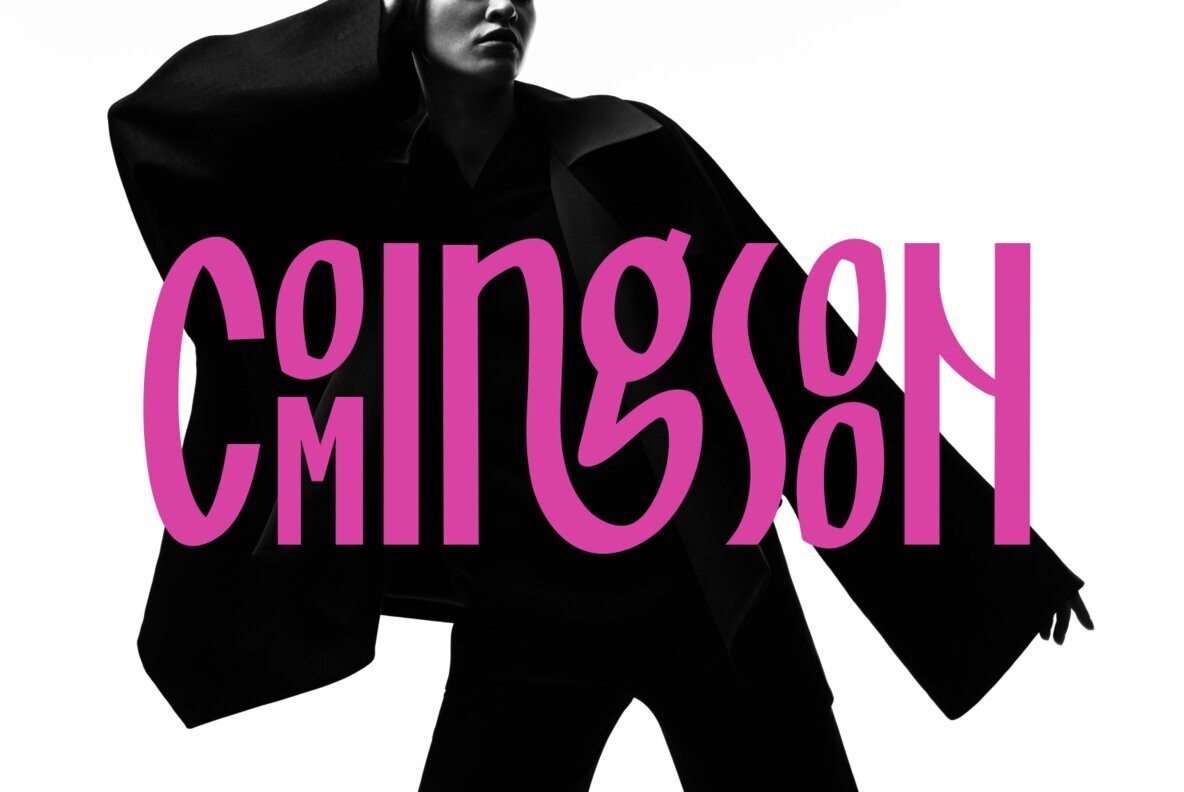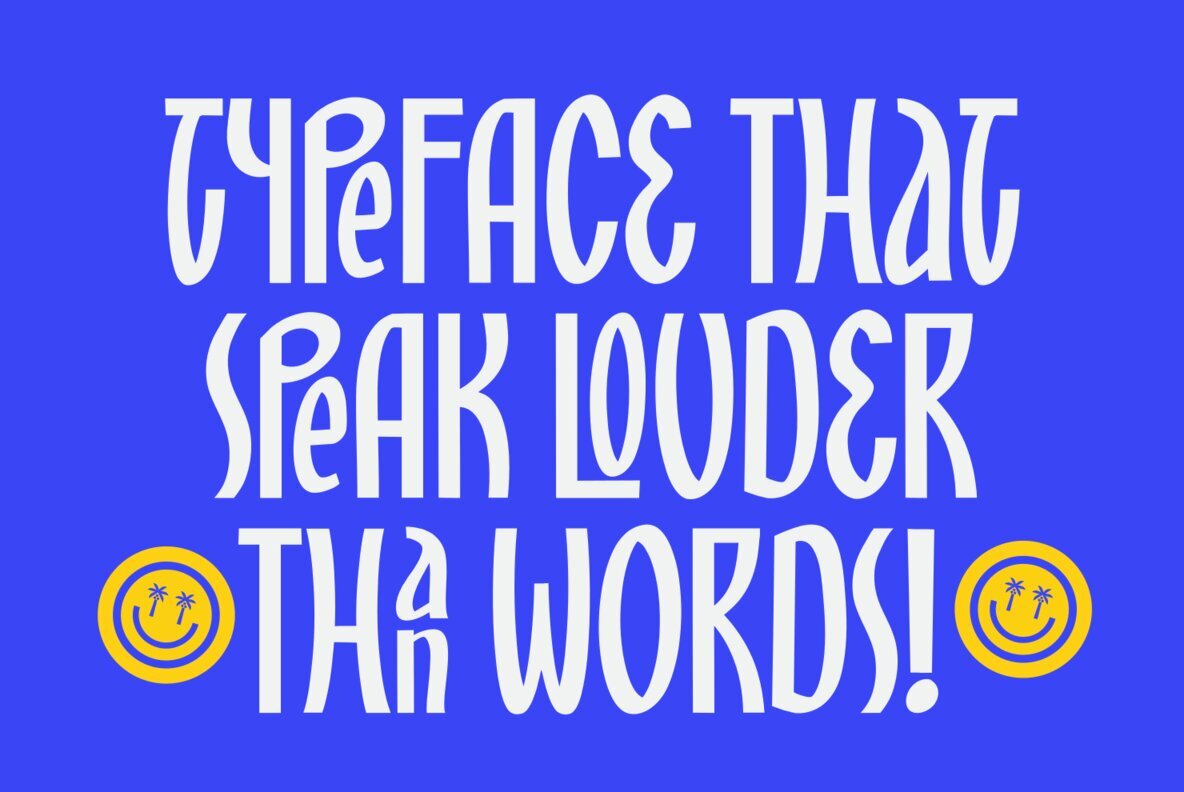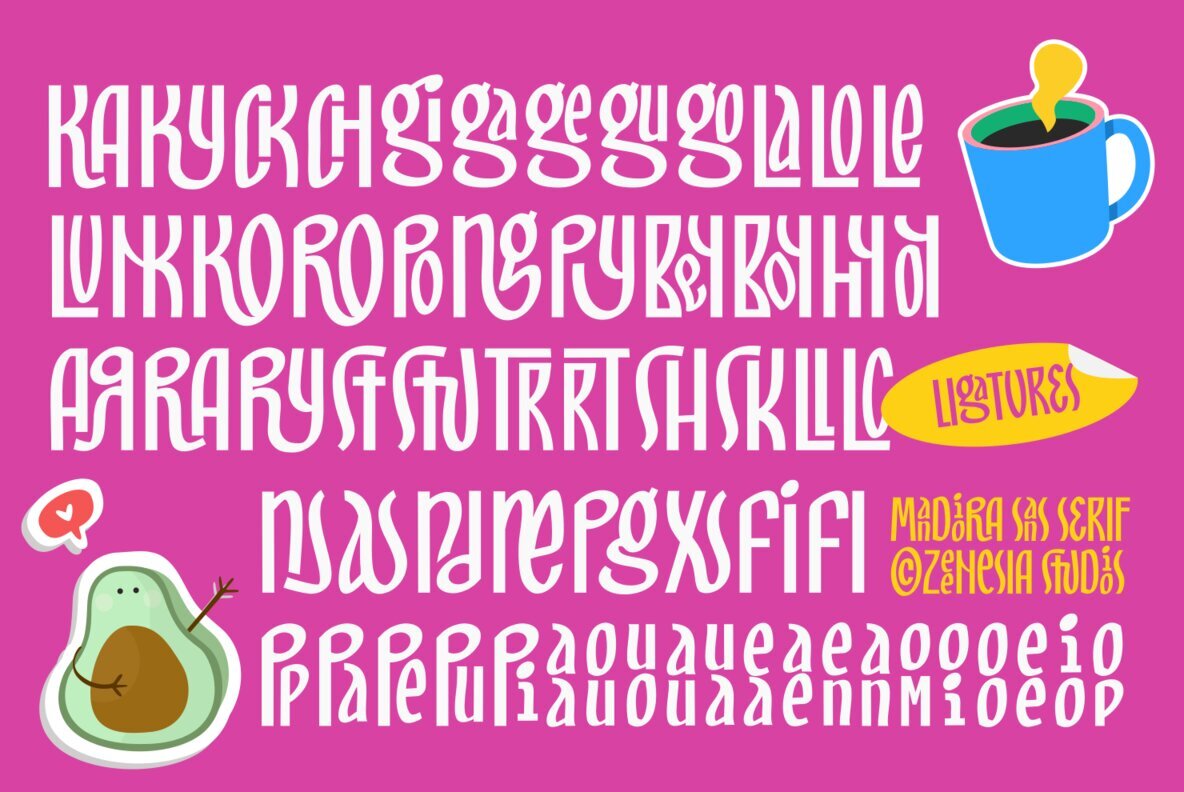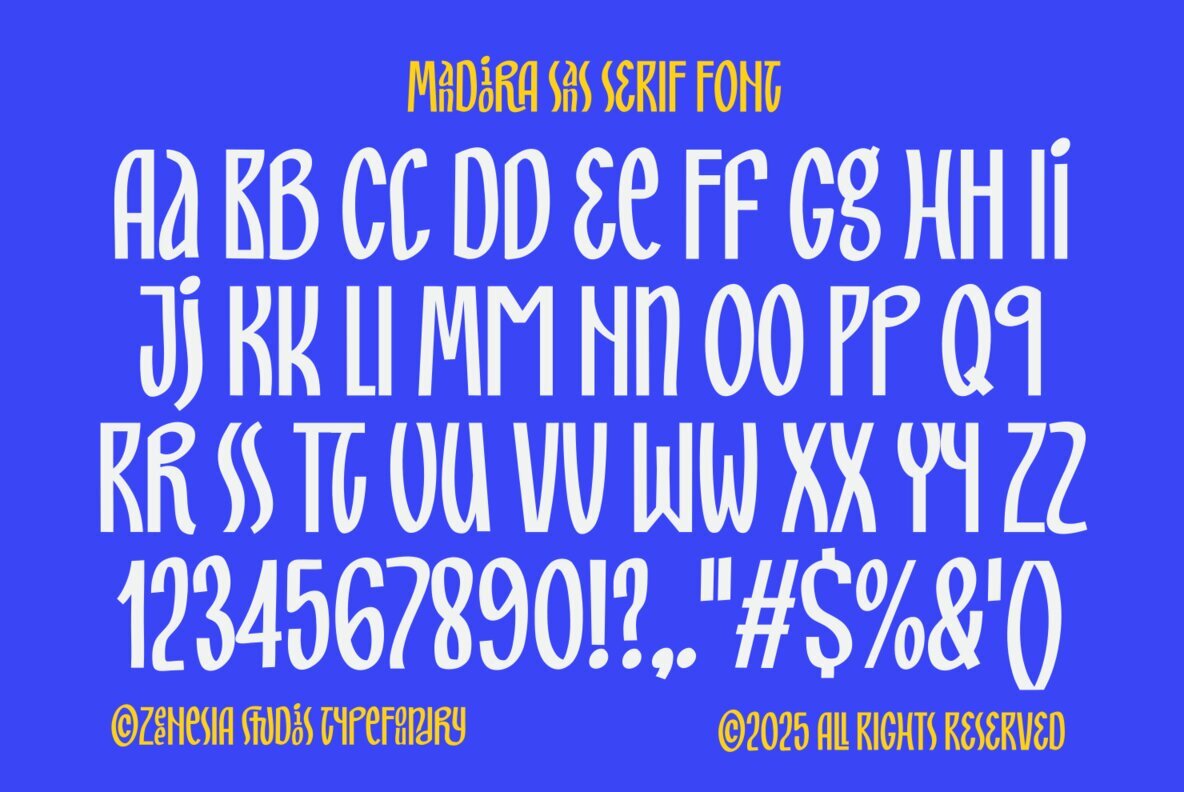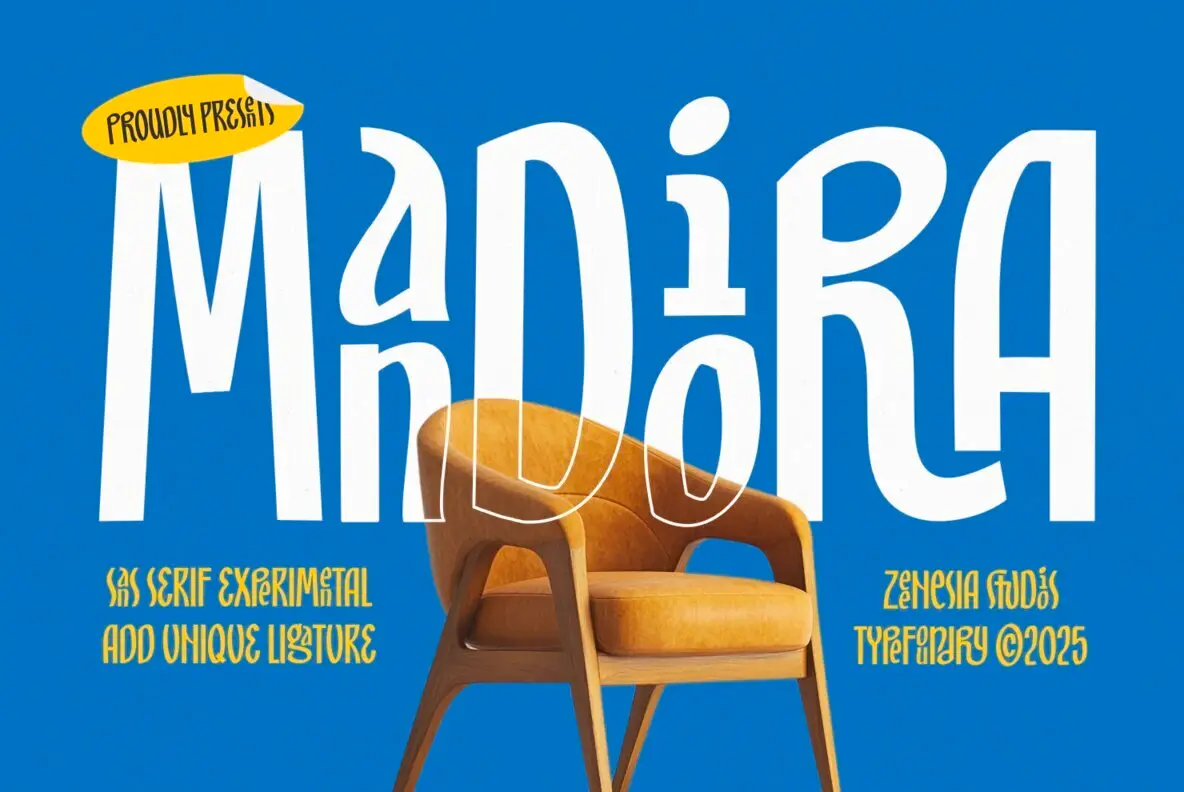
Mandiora Font
Mandiora Regular
Mandiora stands out as a bold and expressive experimental sans serif font, characterized by its striking proportions and distinct ligatures. This font merges modern minimalism with artistic freedom, allowing each word to capture attention with clarity and confidence. Its tall letterforms and dynamic rhythm introduce a playful edge, making Mandiora an ideal choice for designers who aspire to challenge conventions and add character to their work. Ideal for branding, editorial headlines, posters, and innovative projects, Mandiora infuses typography with a unique sense of style and movement. The carefully crafted details and unconventional structure encourage creative expression, giving your projects a memorable impact. Whether used for commercial branding or personal designs, this typeface brings a refreshing statement to modern typography.Mandiora: Experimental Sans Serif with Bold Personality